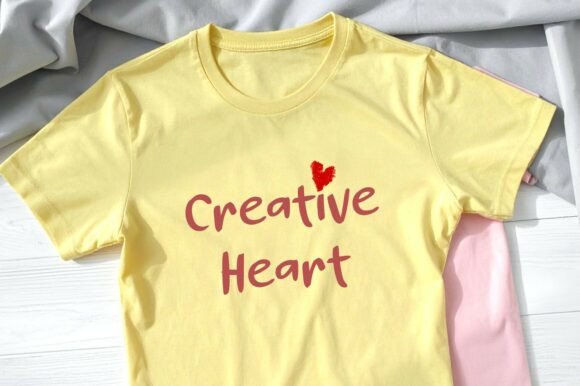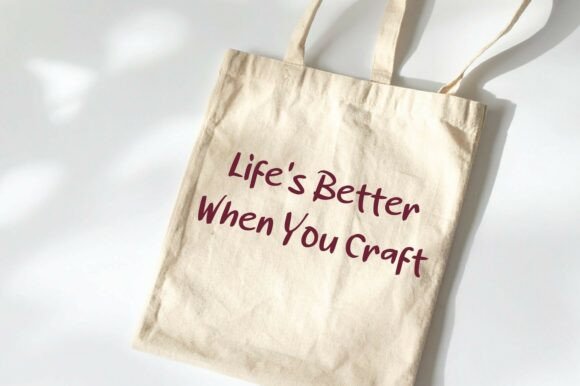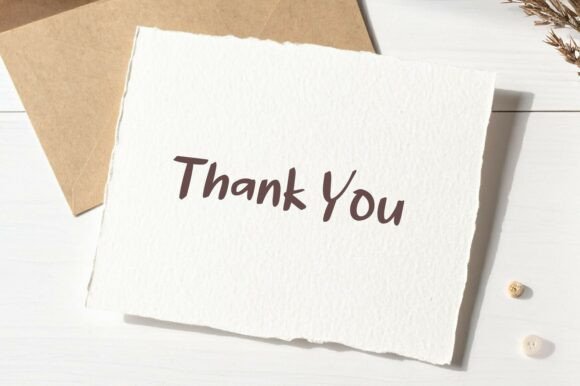
The Joy of Handwritten Charm
Have you ever been inspired by a handwritten note from a loved one, or the quirky scribbles on a childhood birthday card? For many designers, the imperfections and uniqueness of handwritten text can evoke a sense of warmth and personality that’s hard to replicate with digital fonts. That’s where the Acakadut Font comes in – a charming and playful script font that captures the essence of authentic handwriting.
This delightful font is designed to add a touch of human warmth to any project, from branding and invitations to children’s books and social media graphics. With its slightly irregular baseline and varied stroke widths, the Acakadut Font brings a sense of authenticity and approachability to designs, making it a valuable tool for designers looking to add a personal touch to their work.
Acakadut Font Key Features
- Font Family: Acakadut is a unique, hand-drawn font designed to evoke a sense of playfulness and creativity.
- Character Count: The font contains over 500 characters, including uppercase and lowercase letters, numbers, punctuation marks, and special characters.
- Unique Characteristics: Features a distinctive, hand-drawn style with irregularities and imperfections that give it a charming, human touch.
Acakadut Font Review
Overall, I’m quite impressed with the Acakadut Font. It has a unique and playful feel to it, which can be perfect for projects that require a creative touch. ✨
The font has a wide range of uses, from headings to body text, and it looks great in both bold and regular weights. The curves and lines are well-balanced, making it easy on the eyes. ✨
Pros:
- Unique and playful feel
- Wide range of uses
- Well-balanced curves and lines
- Works well in both bold and regular weights
Cons:
- May be too playful for more formal projects
- Lack of versatility in terms of font sizes
- Not ideal for projects that require a lot of small text
- Some letters may be difficult to read at smaller sizes ⚠️
Overall, I think the Acakadut Font is a great choice for designers who want to add some personality to their projects. However, it’s not ideal for every project, and you should consider the type of project and the audience before using it.
Tips for Getting the Most Out of Acakadut Font
Acakadut Font is perfect for creating unique and eye-catching designs. To get the most out of it, try using it in combination with bold or italic styles to add emphasis to your text.
Common Use Cases:
Acakadut Font is great for creating logos, headings, and titles in various designs, including brochures, flyers, and business cards.